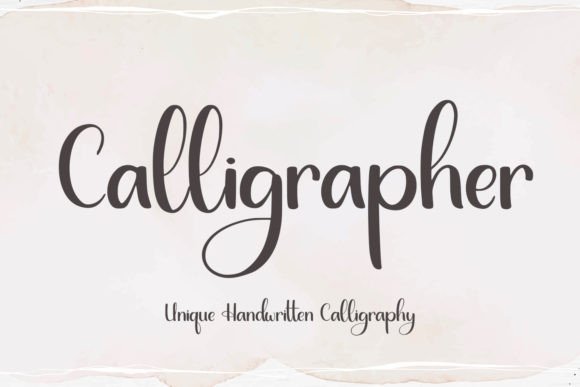
The Art of Elegant Typography: Calligrapher Font
As a designer, have you ever felt the urge to add a touch of personality to a project, to make it truly special and unique? Perhaps you’re working on a wedding invitation, a thank you card, or a logo that requires a personalized style. That’s where the Calligrapher Font comes in – a beautiful, elegant handwritten font that adds a touch of sophistication to any design.
Designed to evoke the feel of traditional calligraphy, the Calligrapher Font is perfect for designers looking to add a handwritten touch to their work. With its unique and intricate strokes, this font is valuable for designers who want to create truly memorable designs that stand out from the crowd. Whether you’re working on a romantic wedding invitation or a heartfelt thank you card, the Calligrapher Font is sure to impress.
Key Features of Calligrapher Font
- Font Family: Calligrapher Font is a high-quality script font, available in various weights and styles to suit different design needs.
- Unique Characteristics: Calligrapher Font features elegant, flowing lines and subtle flourishes, making it ideal for creating beautiful and sophisticated designs, such as wedding invitations, certificates, and luxury packaging.
- Character Set: The font includes a comprehensive character set, including uppercase and lowercase letters, numerals, punctuation marks, and special characters, to ensure that designers have everything they need to create professional-looking designs.
Calligrapher Font Review
Overall, I think the Calligrapher Font has some lovely qualities, but also some areas for improvement. ✨
- The font’s elegant, cursive style makes it perfect for adding a touch of sophistication to headings and titles.
- It’s particularly well-suited for wedding invitations, greeting cards, and other special occasion materials.
- The font’s versatility means it can be used in a variety of design projects, from formal to informal.
However, there are a few limitations to consider. ⚠️
- The font may be difficult to read in certain sizes or resolutions, particularly for text-heavy content.
- It can be challenging to pair with other fonts, as its unique style may clash with more modern or minimalist fonts.
- The font’s complexity may slow down design software, particularly for users with older computers or limited processing power.
Overall, I think the Calligrapher Font is a beautiful addition to any designer’s toolkit. While it may have some limitations, its elegant style and versatility make it a great choice for the right projects. With a little creative thinking and experimentation, I think designers can really make the most of this lovely font.
The Calligrapher Font is ideal for:
- Formal event invitations
- Special occasion announcements
For optimal results, use the Calligrapher Font in conjunction with elegant graphics and subtle color schemes.